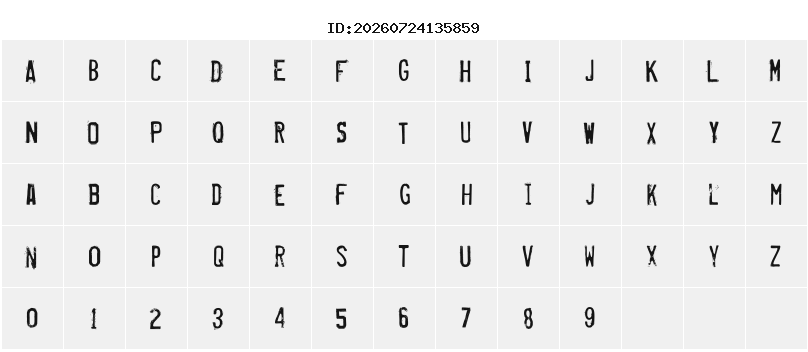
Misproject Preview
• Font Name: Misproject
• Full Font Name: Misproject
• PostScript Name: Misproject
About Misproject.ttf
Misproject.ttf is a modern, elegant sans-serif font designed for ultimate readability and visual harmony. Perfect for branding, headlines, web design, and print materials.